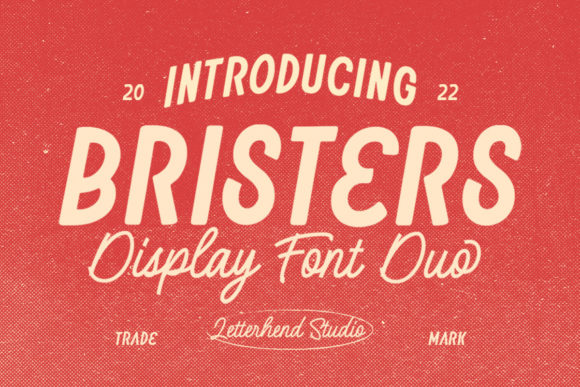
Behold Brister, the Exemplary Duo Font for Church Signage Radiance!
Immerse yourself in the timeless charm of Brister Font, a mesmerizing display font family that will elevate your church signage to new heights of inspiration and elegance. Creatively crafted by Letterhend, Brister is an extraordinary duo font, harmoniously combining a captivating script and a striking sans serif.
Journey through the realm of retro aesthetics with Brister, a font that evokes the charm of bygone eras while seamlessly adapting to modern sensibilities. Its meticulously designed characters exude a distinct vintage allure, adding a touch of sophistication and heritage to your church signage.
With its remarkable versatility, Brister empowers you to create captivating and cohesive designs. Whether you seek to craft eye-catching posters, alluring social media graphics, or visually stunning website headers, Brister effortlessly adapts to your creative vision. The synergy between its script and sans serif styles allows for endless possibilities, inviting you to mix and match, layer, and experiment until you achieve the perfect harmony for your project.
Beyond its aesthetic appeal, Brister is a font of impeccable functionality. Its clean lines and meticulously crafted curves ensure optimal readability, even at smaller font sizes, making it the ideal choice for signage that demands clarity and impact. Whether your message is a warm invitation to Sunday service, an announcement of an upcoming event, or a thought-provoking quote, Brister ensures your words resonate with clarity and grace.
Brister's vintage charm lends an air of authenticity and tradition to your church signage. Its timeless appeal evokes a sense of heritage and deep-rooted values, fostering a sense of connection and belonging within your congregation. It's a font that speaks to the heart, inviting individuals to come together in shared faith and fellowship.
Step into the world of Brister Font today and unlock the potential for truly captivating church signage. Let its vintage charm and remarkable versatility inspire you to create designs that draw the eye and touch the soul. With Brister as your creative ally, your church signage will radiate with beauty, intention, and unwavering faith.